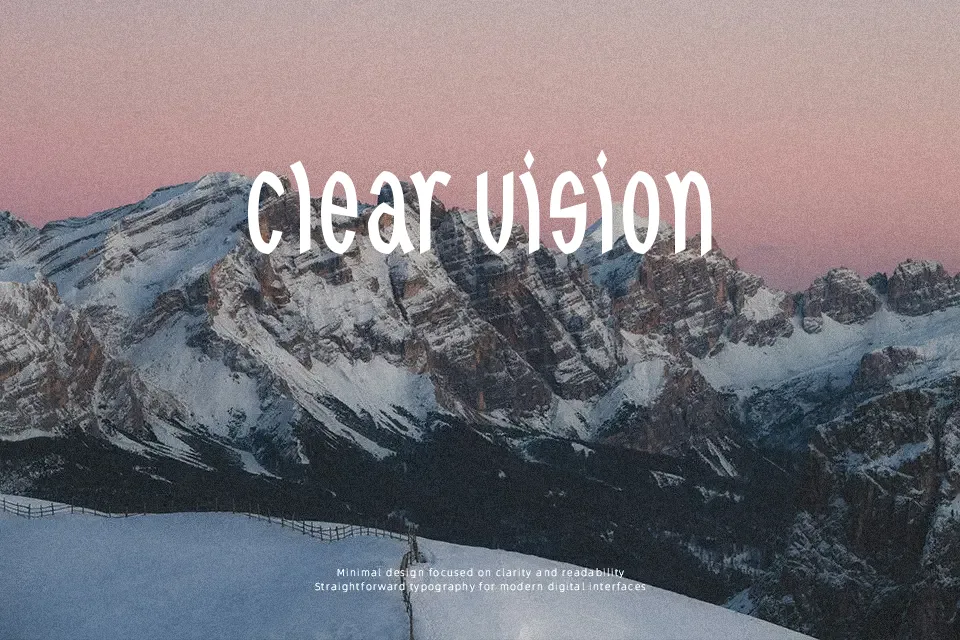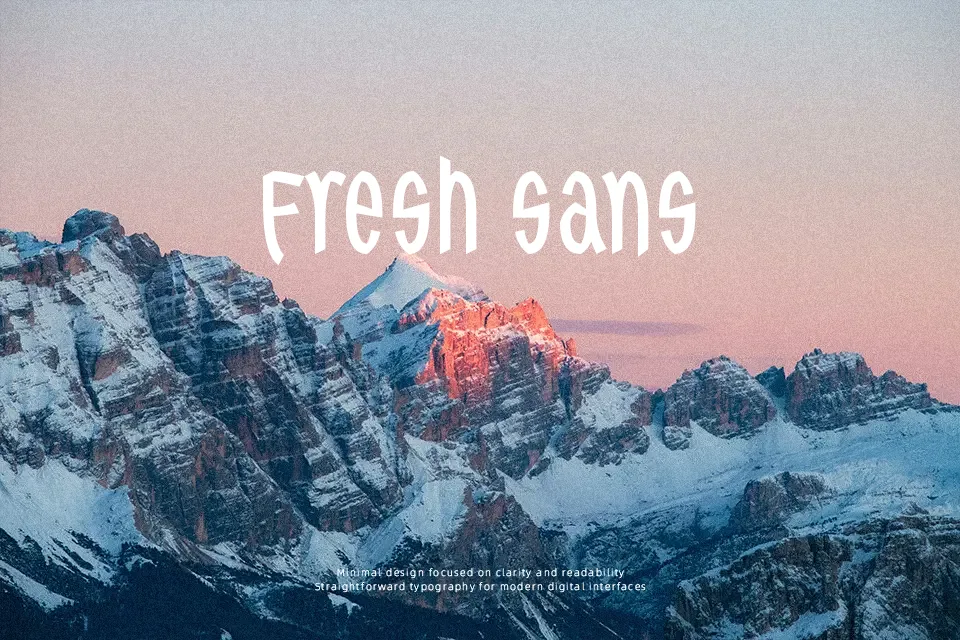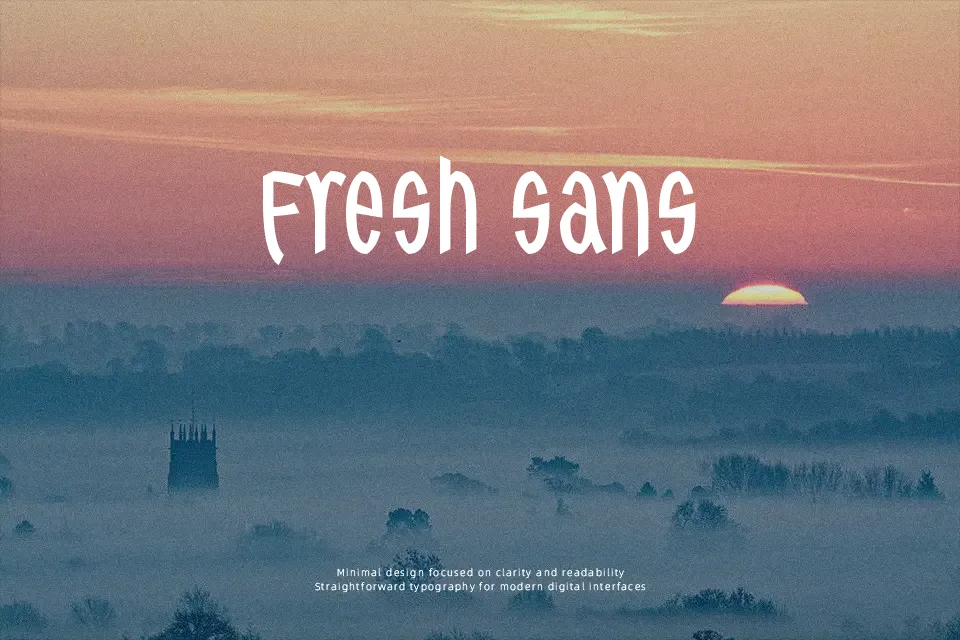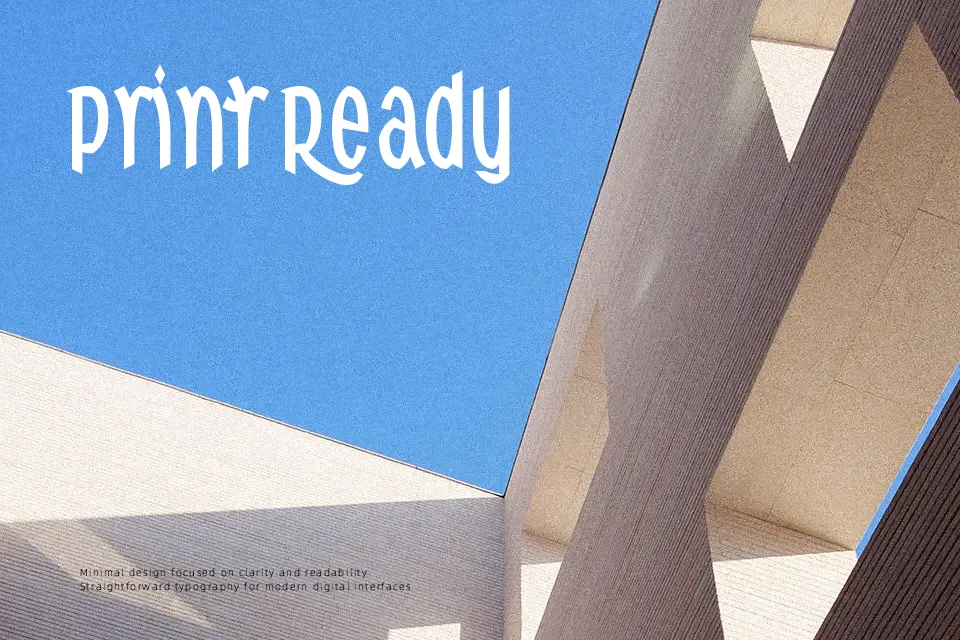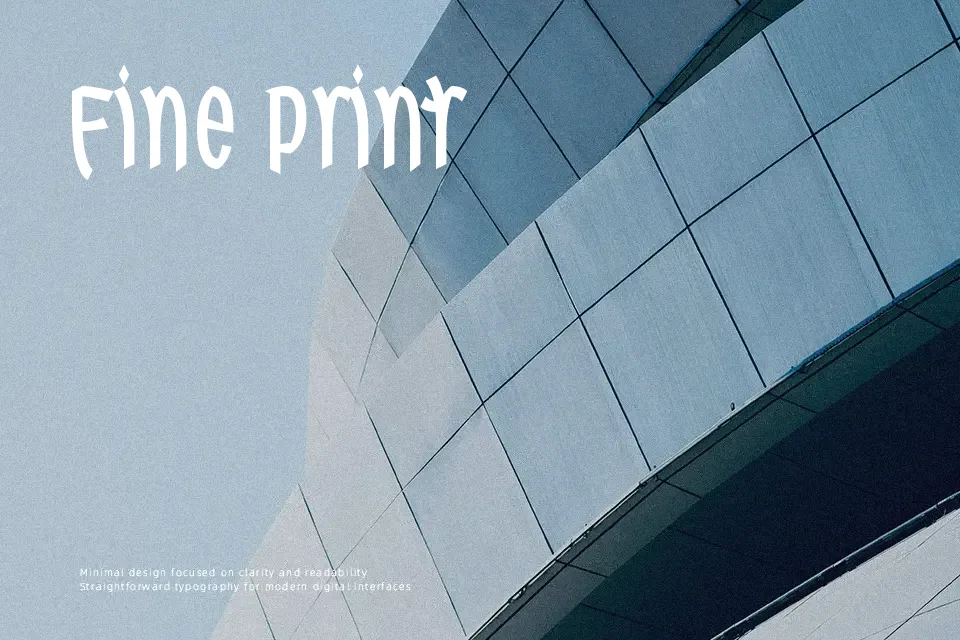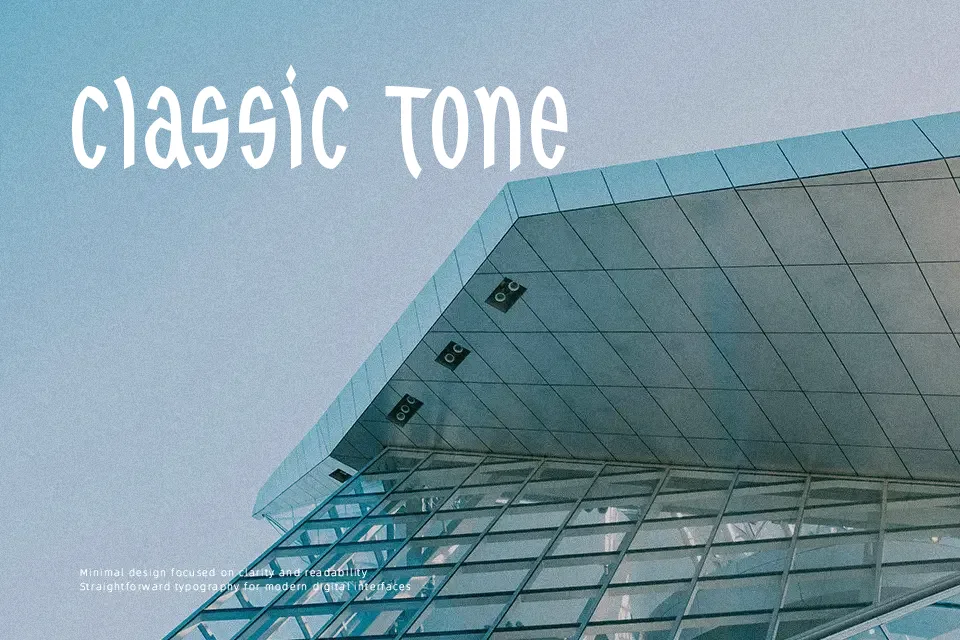
Red Dragons Font
Red Dragons Font immediately establishes a strong visual presence with its sharp, calligraphic strokes and expressive rhythm. The letterforms display high stroke contrast, transitioning rapidly from thick, impactful lines to delicate, tapered terminals. These distinct visual characteristics lend the typeface a dramatic, ancient aesthetic that works exceptionally well for themed designs. The balanced spacing helps maintain clarity in larger headlines, allowing the intricate details to stand out. However, the highly stylized forms become less effective at smaller sizes, where decorative elements reduce continuous reading comfort. The bold design performs best when utilized for prominent display purposes, making it an excellent choice for fantasy game titles, striking poster typography, and creative branding applications.
fantasy game titles, music festival posters, thematic branding, creative apparel graphics
long paragraph text, small interface labels, corporate reports
Perfect for branding, gaming, and headline, with a ancient and calligraphy style.